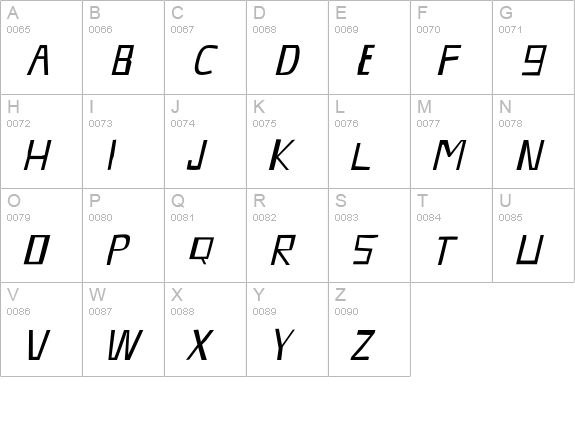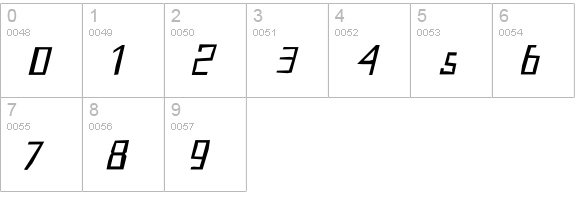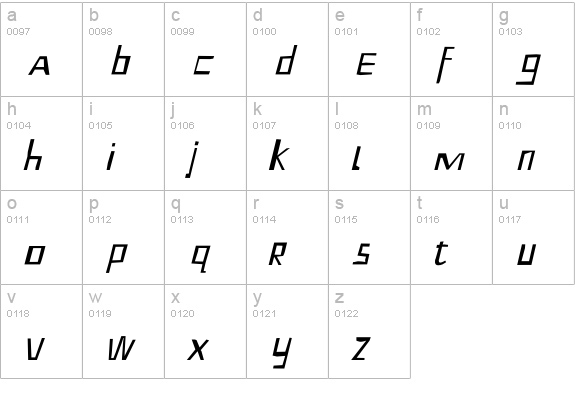
ShoeRepairs-Italic Font Details
ShoeRepairs-Italic is a distinctive, italic variant in the ShoeRepairs typeface family \xE2\x80\x94 well suited to design and typography projects.
ShoeRepairs-Italic font is a beautiful and elegant typeface that adds a touch of sophistication to any design project. With its slanted and italicized letterforms, this font exudes a sense of style and grace. Designed specifically for the ShoeRepairs brand, this font is perfect for logos, headlines, and other promotional materials. Its unique and eye-catching design will captivate your audience and leave a lasting impression. One of the best features of ShoeRepairs-Italic font is that it is freely available to download at FontsMarket.com. This means that you can easily access and use this font for your personal or commercial projects without any cost. No need to worry about breaking the bank to enhance your designs with a high-quality font. Whether you're a professional designer or someone who simply enjoys playing around with typography, ShoeRepairs-Italic font is a must-have addition to your font collection. Its versatility and timeless appeal make it suitable for a wide range of design applications. So, don't miss out on the opportunity to elevate your designs with the elegance and charm of ShoeRepairs-Italic font. Visit FontsMarket.com today and download this fantastic font for free!